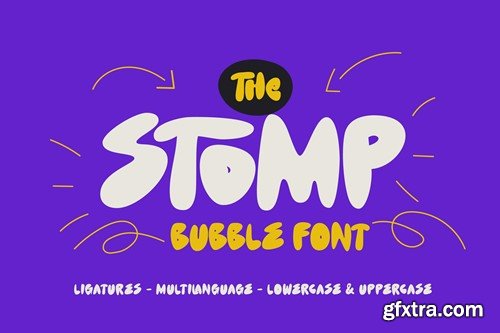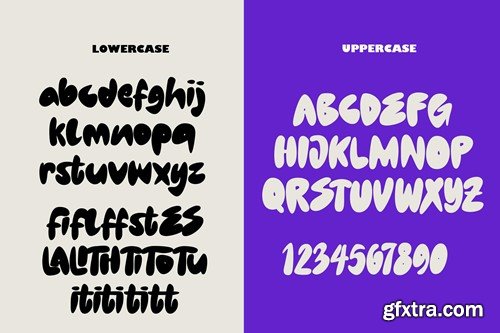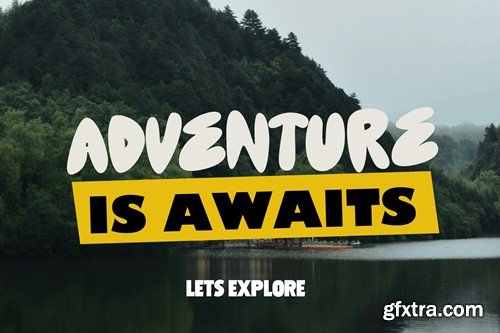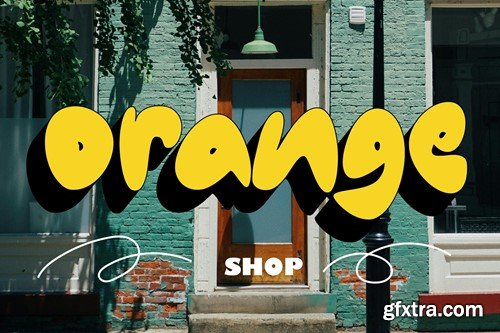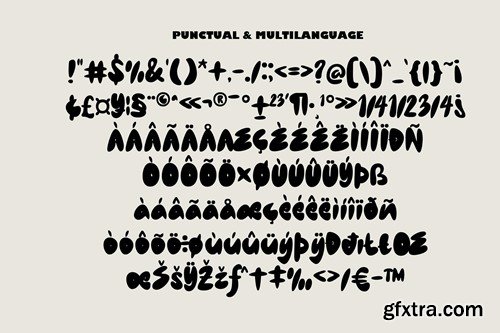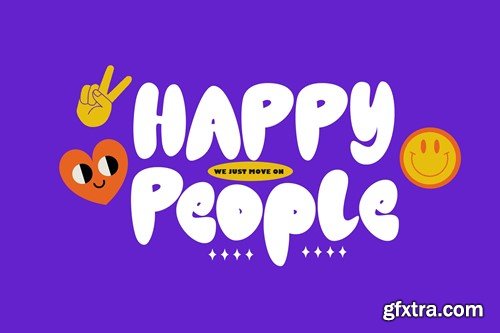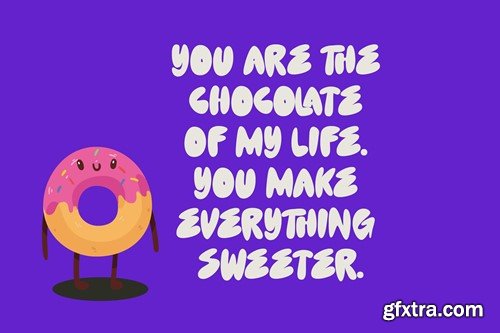
CD Stomp Buble Font LK4XWGS
The Buble font dances on the page like bubbles in the air, playful and whimsical. Its rounded edges and buoyant curves evoke a sense of joy and lightness, infusing any text with a sense of cheerfulness. Each letter seems to float effortlessly, creating a sense of movement and liveliness. The font's bubbly demeanor adds a touch of innocence and friendliness to any design, making it perfect for children's books, invitations, or anything that requires a hint of whimsy. Its simplicity belies its versatility, as it can easily adapt to various styles and themes, ensuring a delightful reading experience for all. Thanks